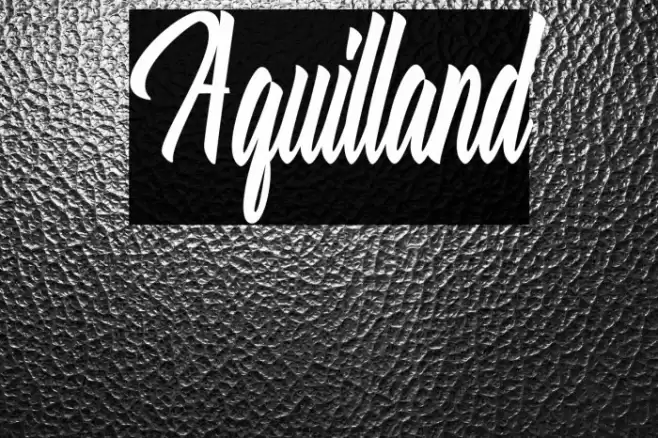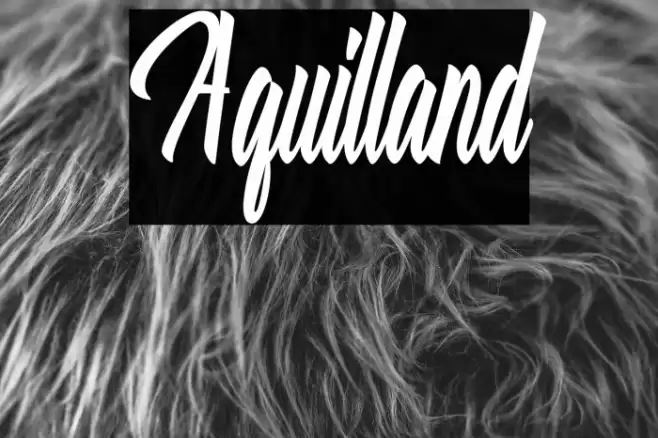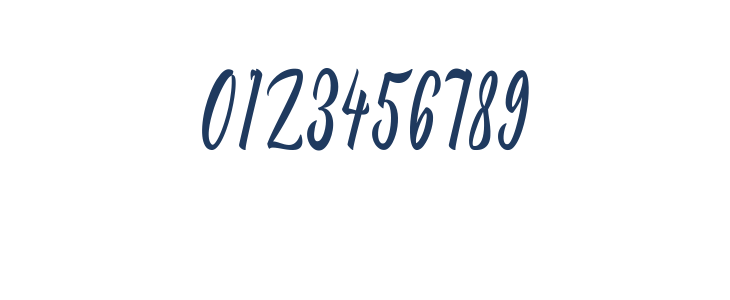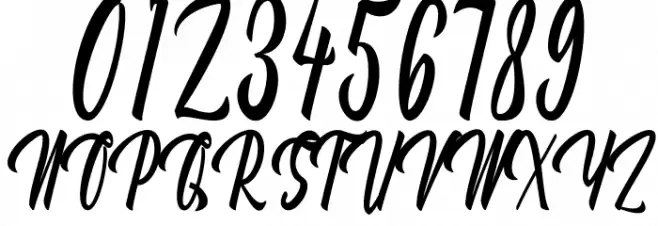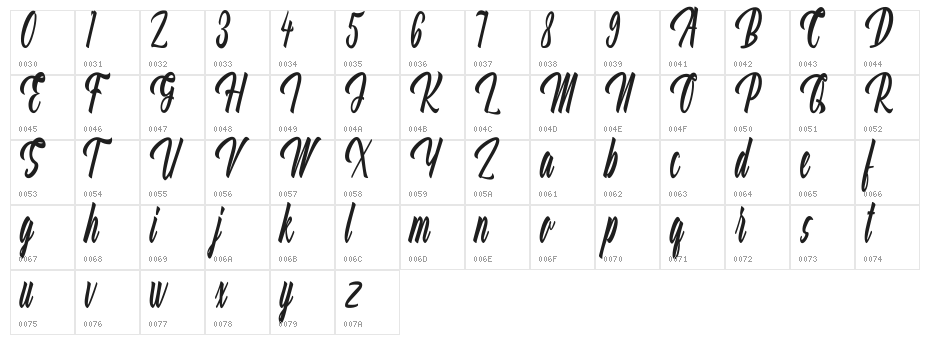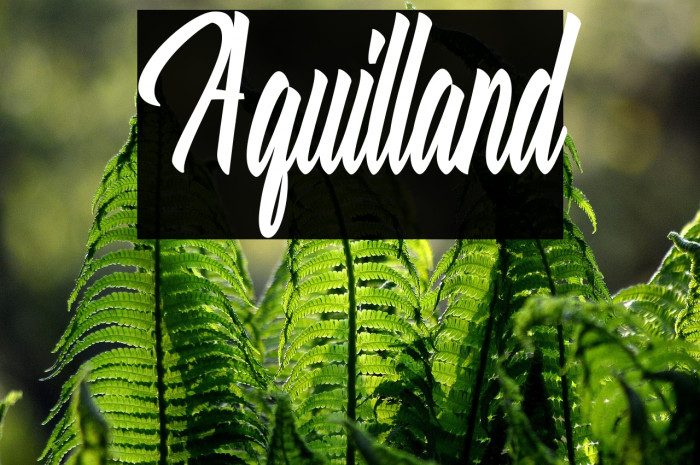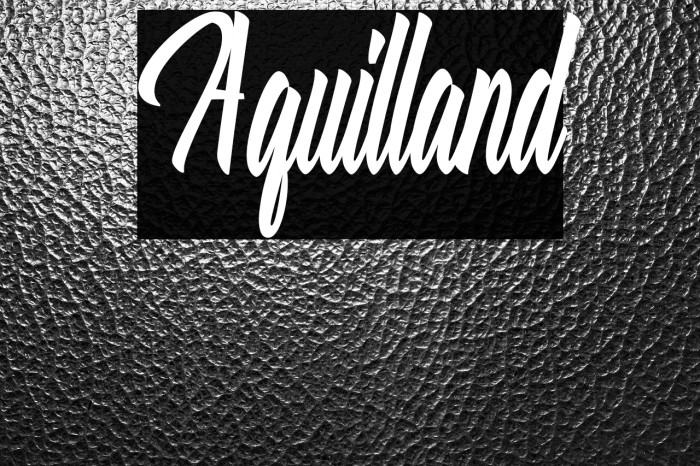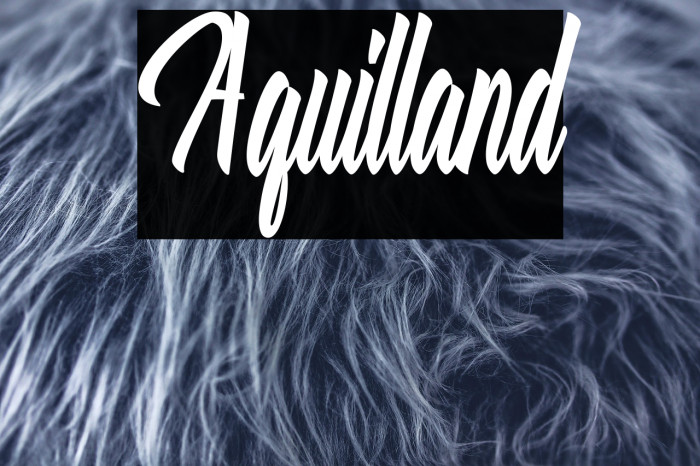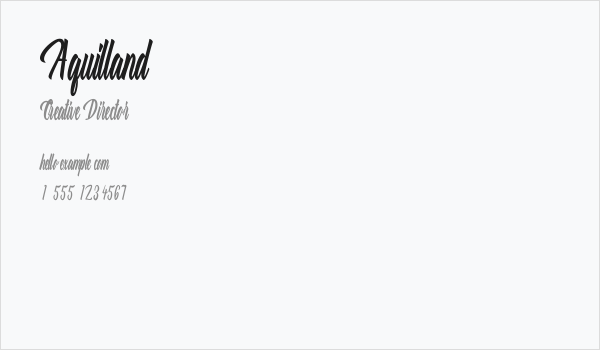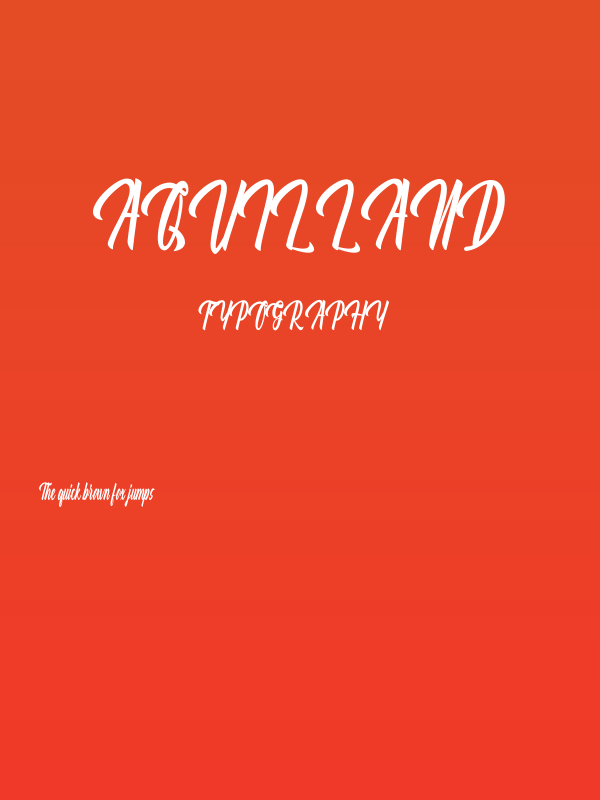
Aquilland Font
Aquilland Description
This font features a dynamic and flowing script style, characterized by its elegant and cursive letterforms. The uppercase letters are bold and sweeping, with a consistent slant that adds a sense of motion and fluidity. The lowercase letters maintain this cursive style, with smooth connections between characters, enhancing the overall cohesiveness of the text. The numerals are similarly styled, with a slight slant and consistent stroke weight, ensuring they blend seamlessly with the alphabetic characters. The special characters retain the same flowing aesthetic, making them suitable for decorative purposes. This font's design is both expressive and legible, making it ideal for creative and artistic applications.
A dynamic and flowing script font with elegant cursive letterforms from Regular fonts.
- Proposed Projects: Ideal for wedding invitations, greeting cards, branding, and logo design.
- Character Spacing: Tight
- Use Case: Logos, Headlines, Invitations